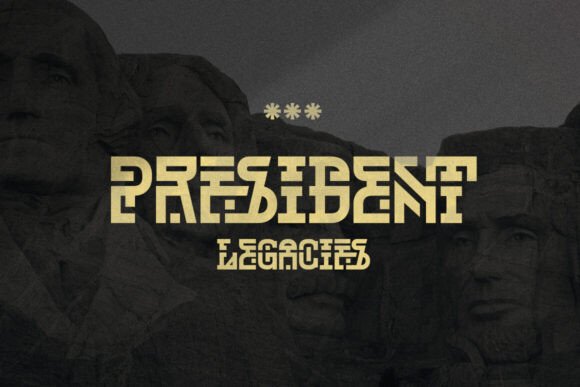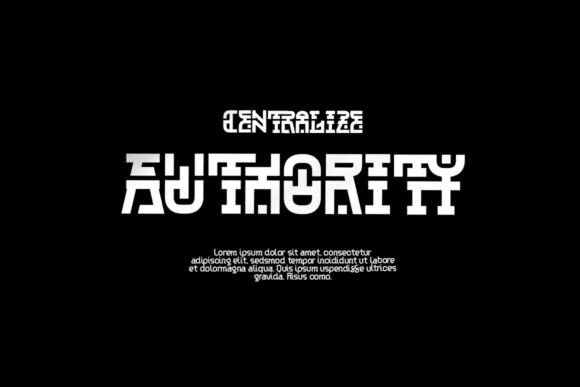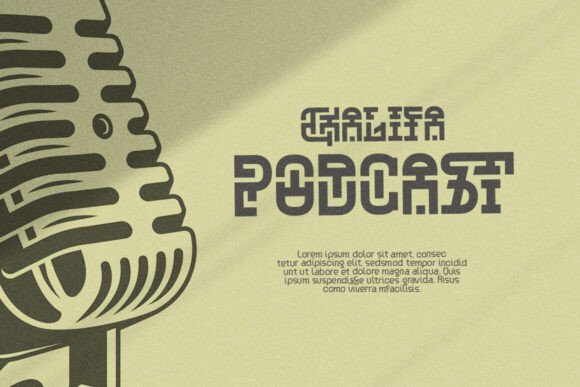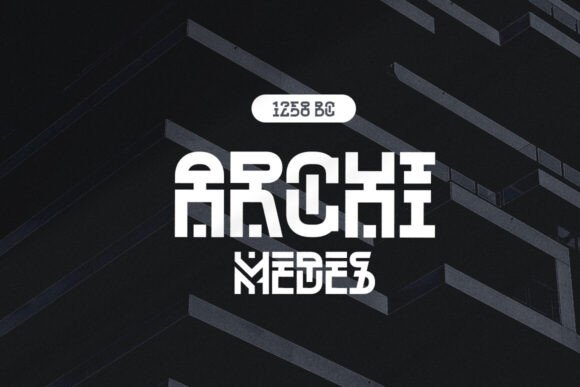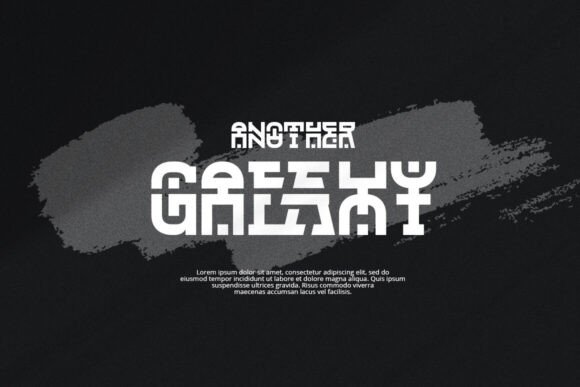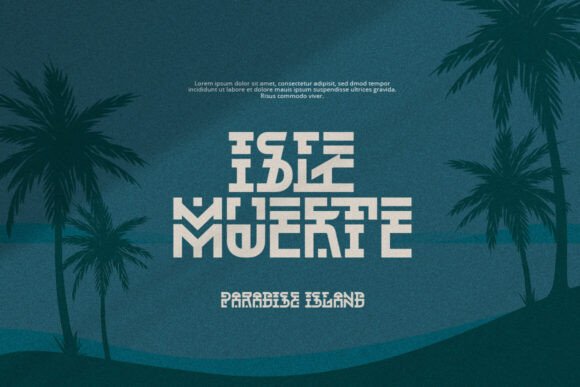
Introduction to Monarchy Absolute Font
Dare to be unique with Monarchy Absolute – a commanding and audacious typography with a distinctive futuristic touch.
Embodying aesthetic monoline design, every single character in this font is assiduously devised to strike the perfect balance between contemporary grace and startling singularity With its powerful, all-caps presentation, this font brings life to headlines, logos, and posters, making it the go-to choice for any creation that craves recognition.
Key Features of Monarchy Absolute Font
Why Choose Monarchy Absolute Font?
Monarchy Absolute Font offers exceptional quality and versatility, making it a valuable addition to your design toolkit. Whether you’re creating for personal projects or commercial use, Monarchy Absolute Font delivers professional results.